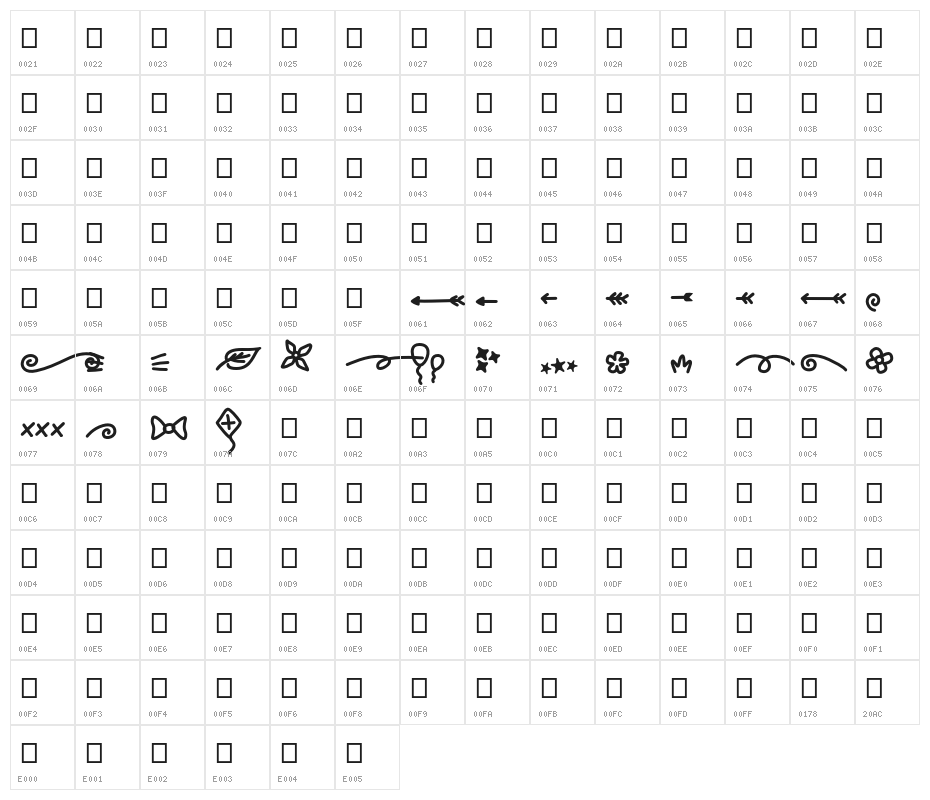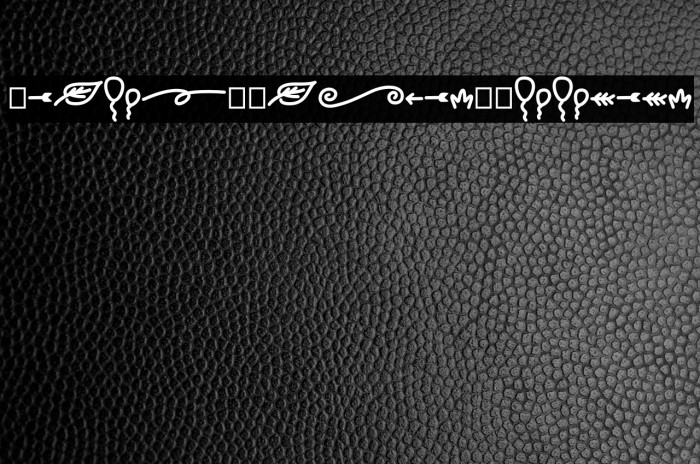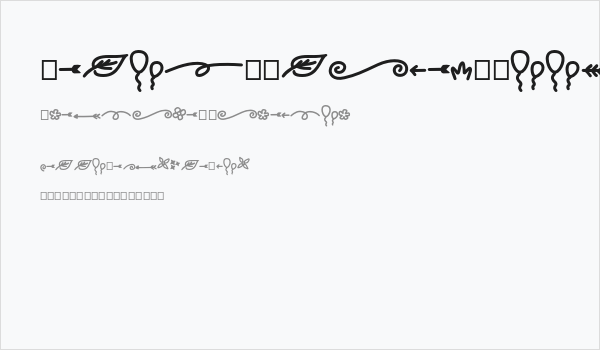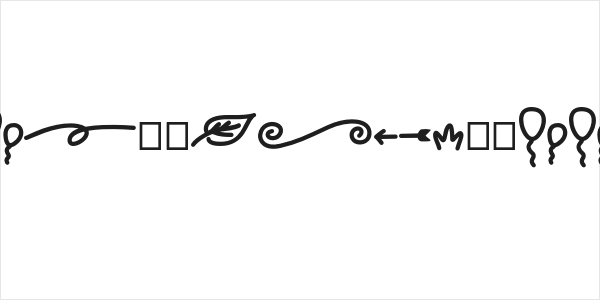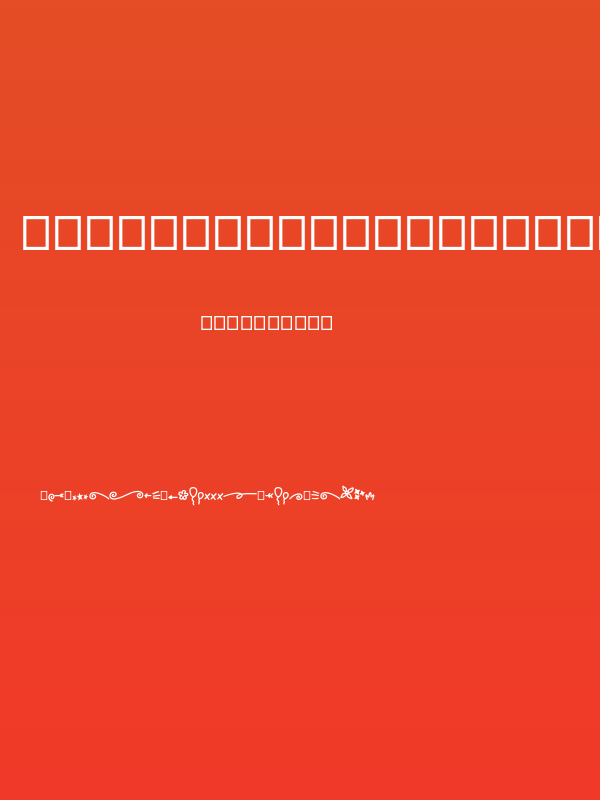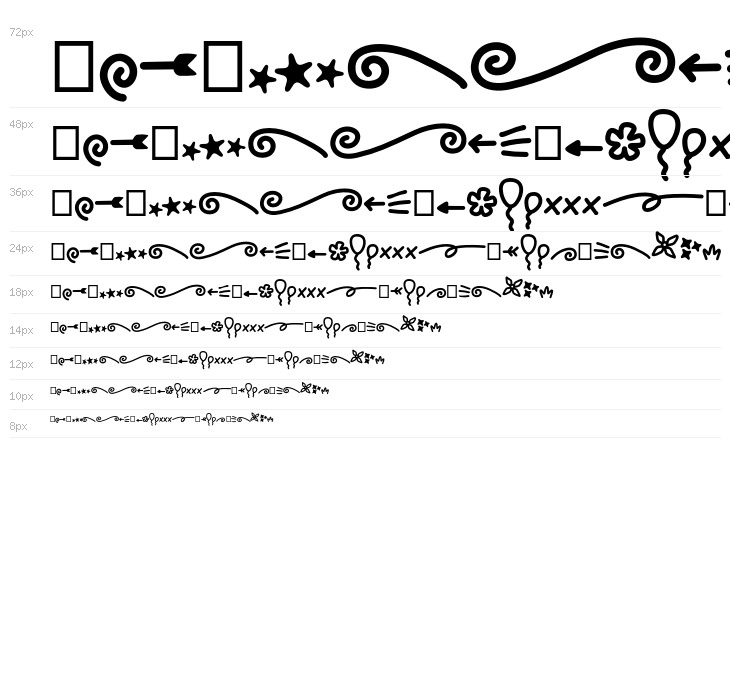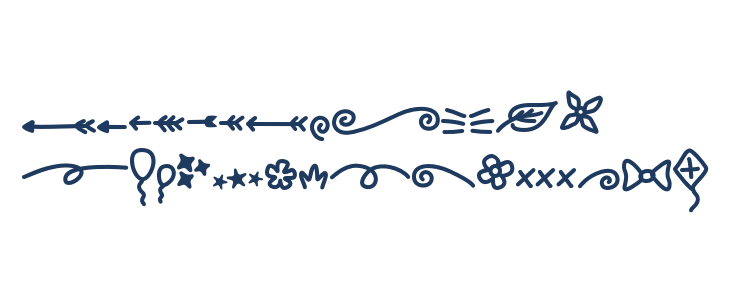
Melon Slices Doodeds Font
Melon Slices Doodeds Description
A decorative dingbat font featuring whimsical hand-drawn borders, arrows, swirls, leaves, balloons, stars, flowers, and other playful motifs, ideal for embellishing creative projects.
Overall StyleDecorative, Whimsical, Playful
Use CaseBorders, embellishments, dividers, creative accents
Proposed ProjectsInvitations, greeting cards, scrapbooking, children's books, party decorations, digital stickers.